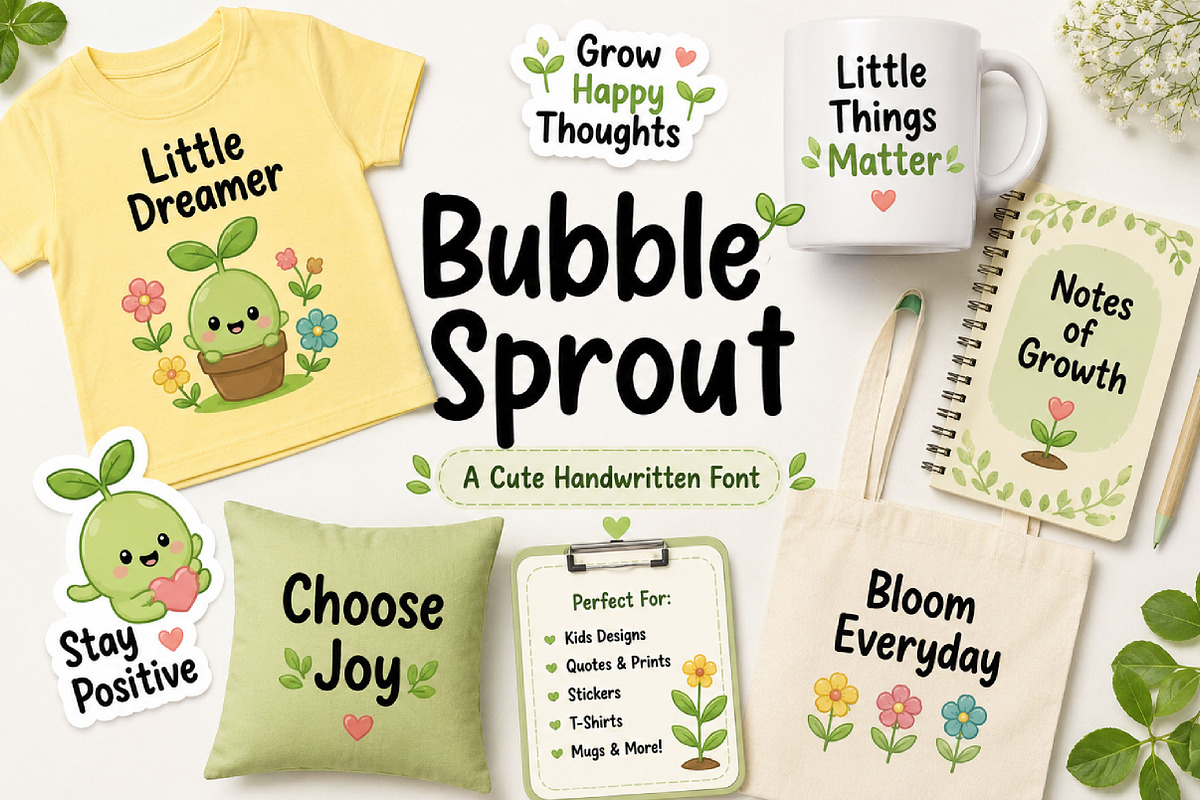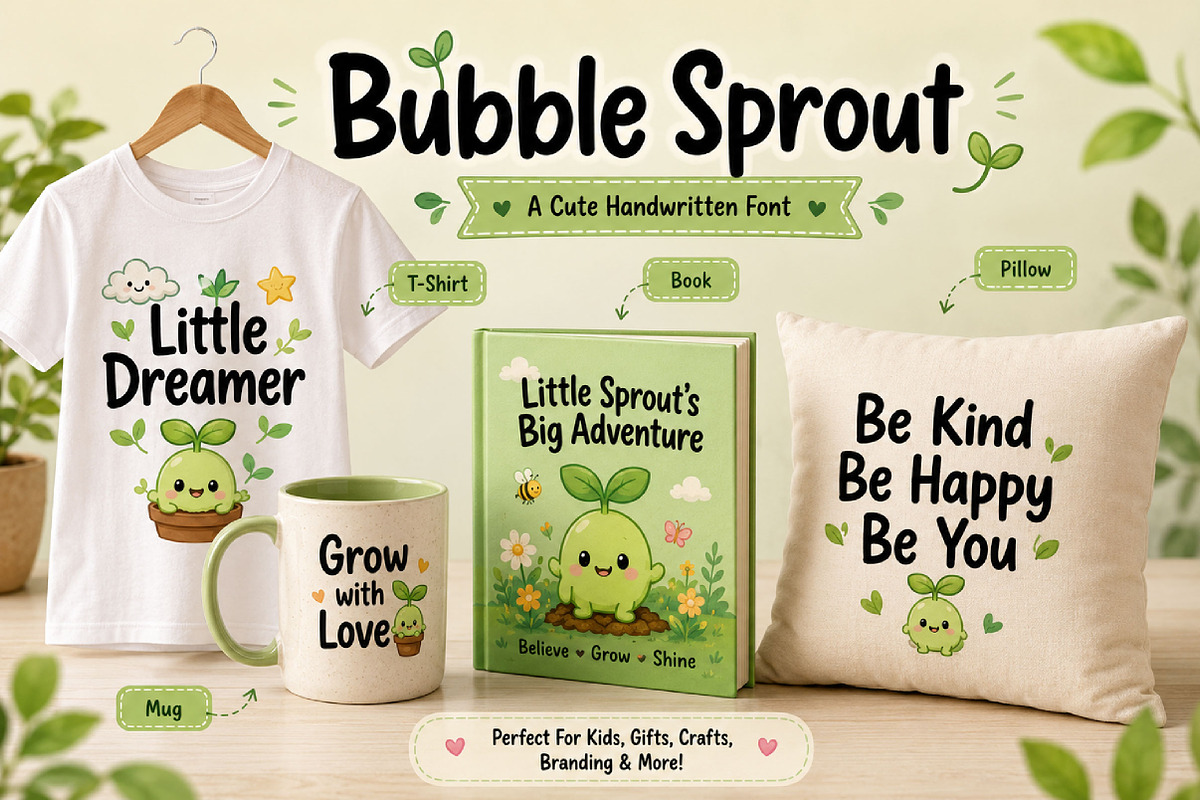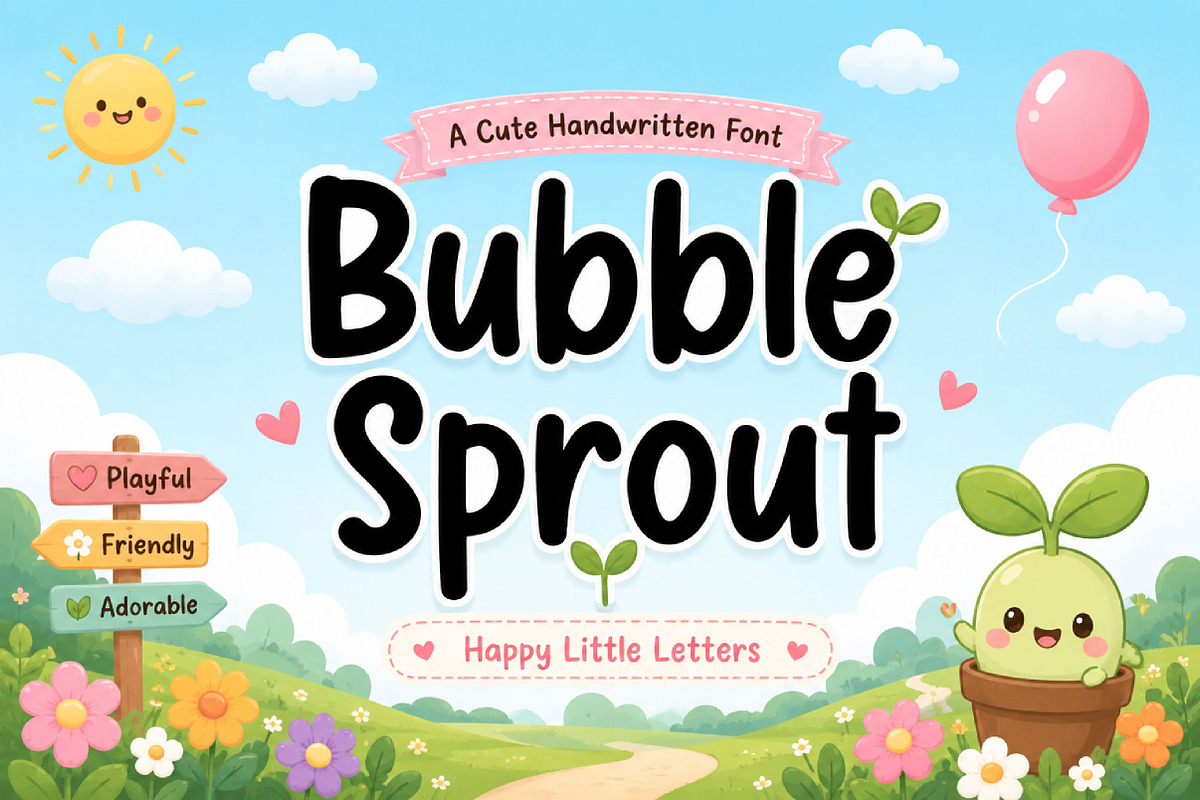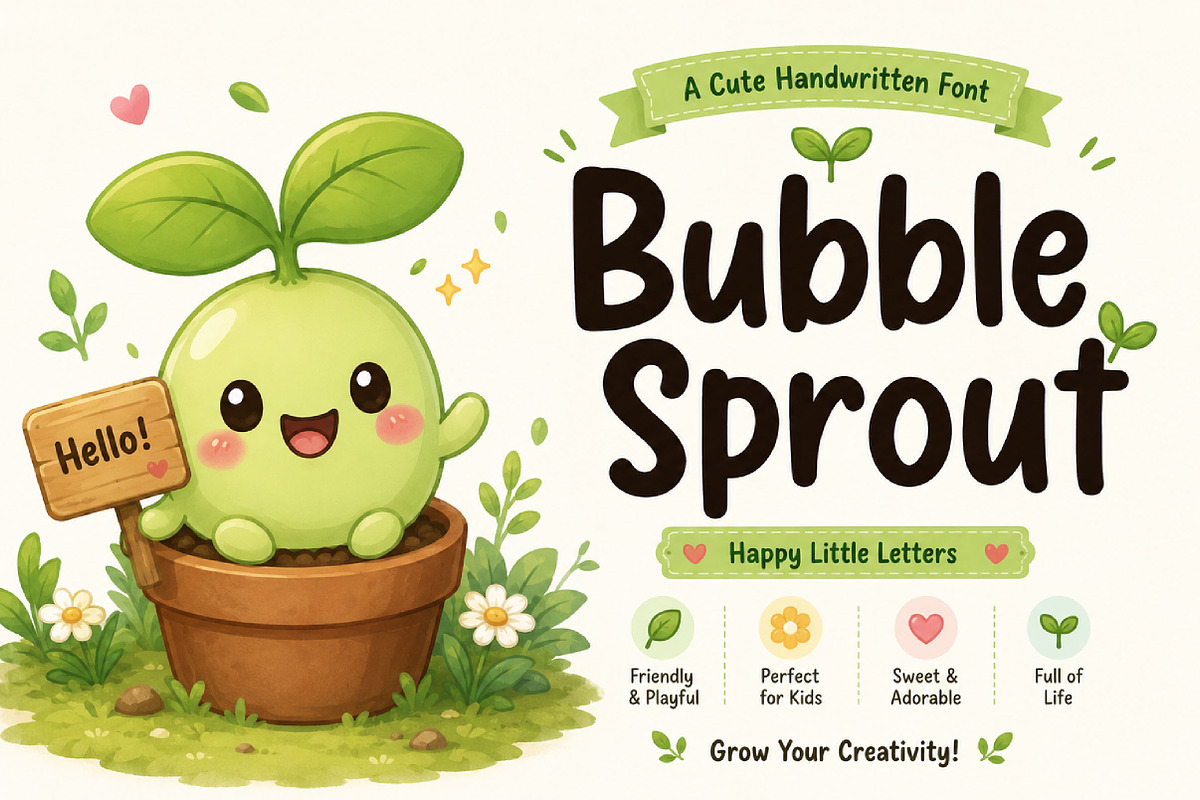
Bubble Sprout
Bubble Sprout – Playful Handwritten Display Font
Bubble Sprout is a playful, cute, and rounded handwritten display font, perfect for kids’ designs, stickers, packaging, logos, posters, and cheerful creative projects.
Bubble Sprout is a fun and friendly handwritten display font designed with soft curves, rounded shapes, and a cheerful personality. Its bubbly letterforms create a warm and playful look that instantly adds charm to any design.
With its casual hand-drawn style, Bubble Sprout is perfect for projects that need a cute, youthful, and creative feel. Whether you are designing children’s products, playful logos, stickers, packaging, posters, greeting cards, or social media graphics, this font brings a bright and happy touch to your typography.
The smooth rounded structure makes it easy to read while keeping a unique handmade character. Bubble Sprout works beautifully for both print and digital designs, especially when you want your text to feel fun, approachable, and full of personality.
Kids and children’s designs
Playful logo design
Stickers and merchandise
Packaging design
Posters and headlines
Greeting cards
Party and event graphics
YouTube thumbnails
Cute branding projects
Fun display typography
Rounded handwritten style
Cute bubbly appearance
Playful and friendly character
Easy-to-read display font
Perfect for cheerful designs